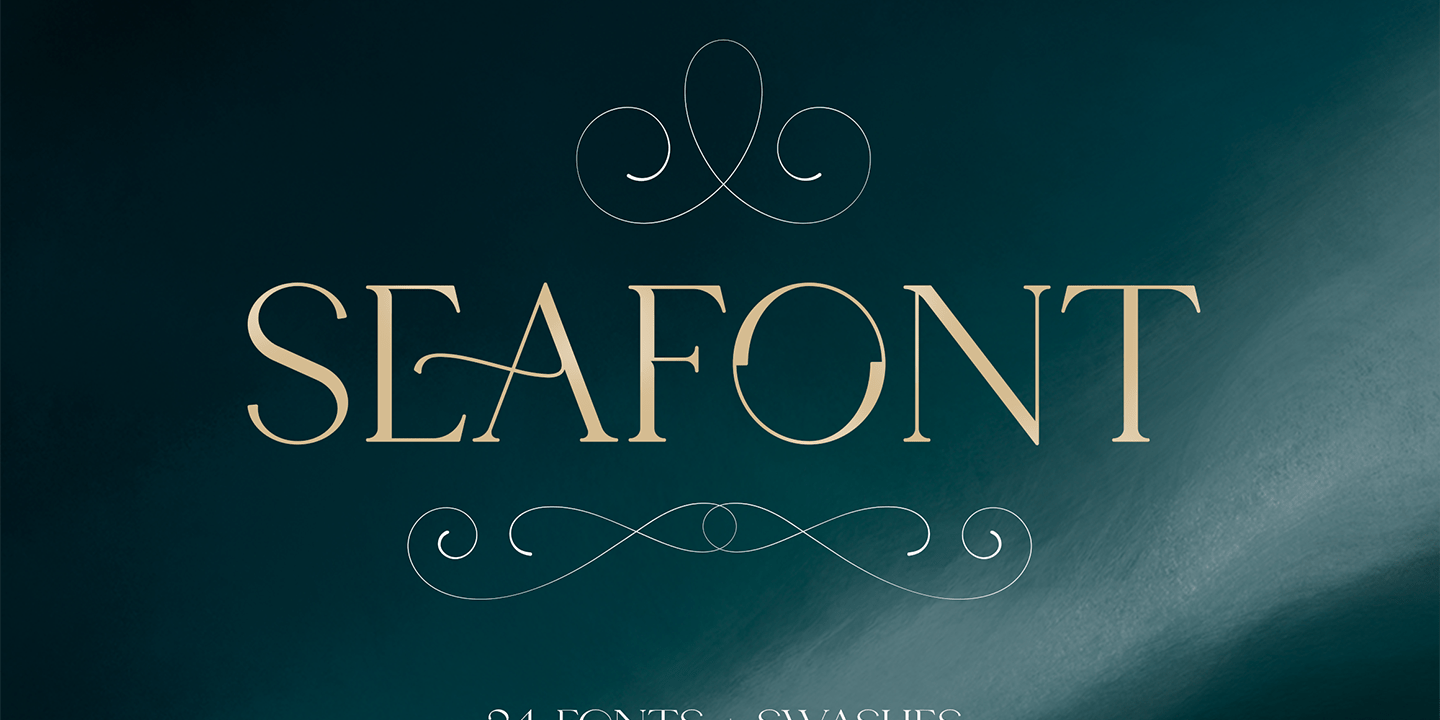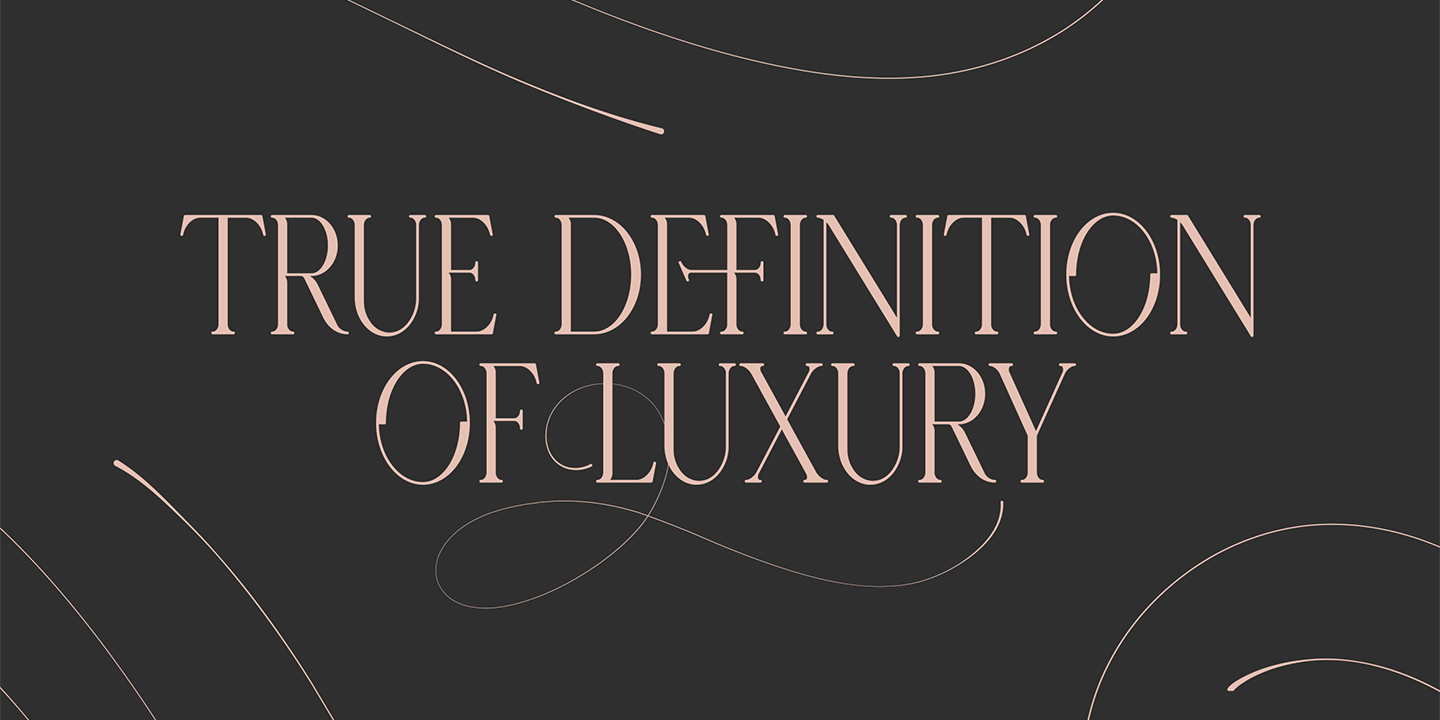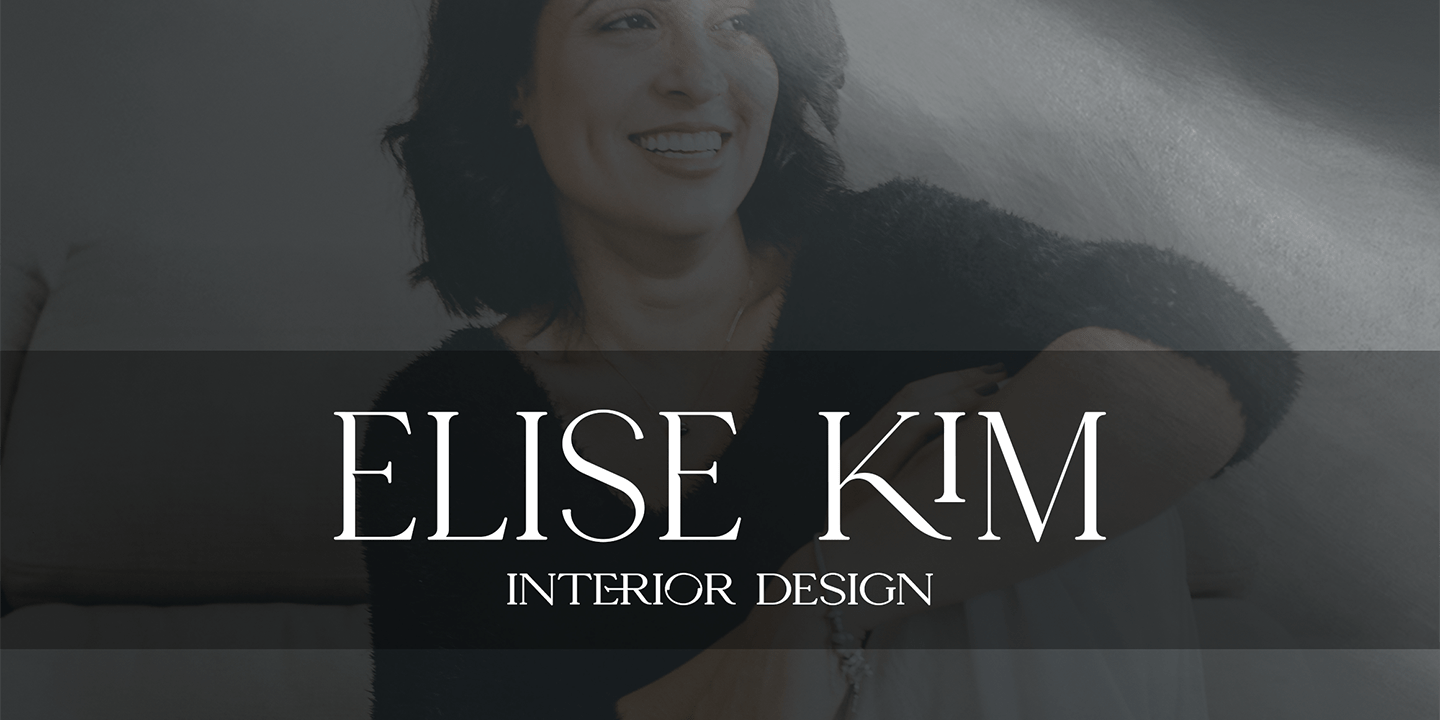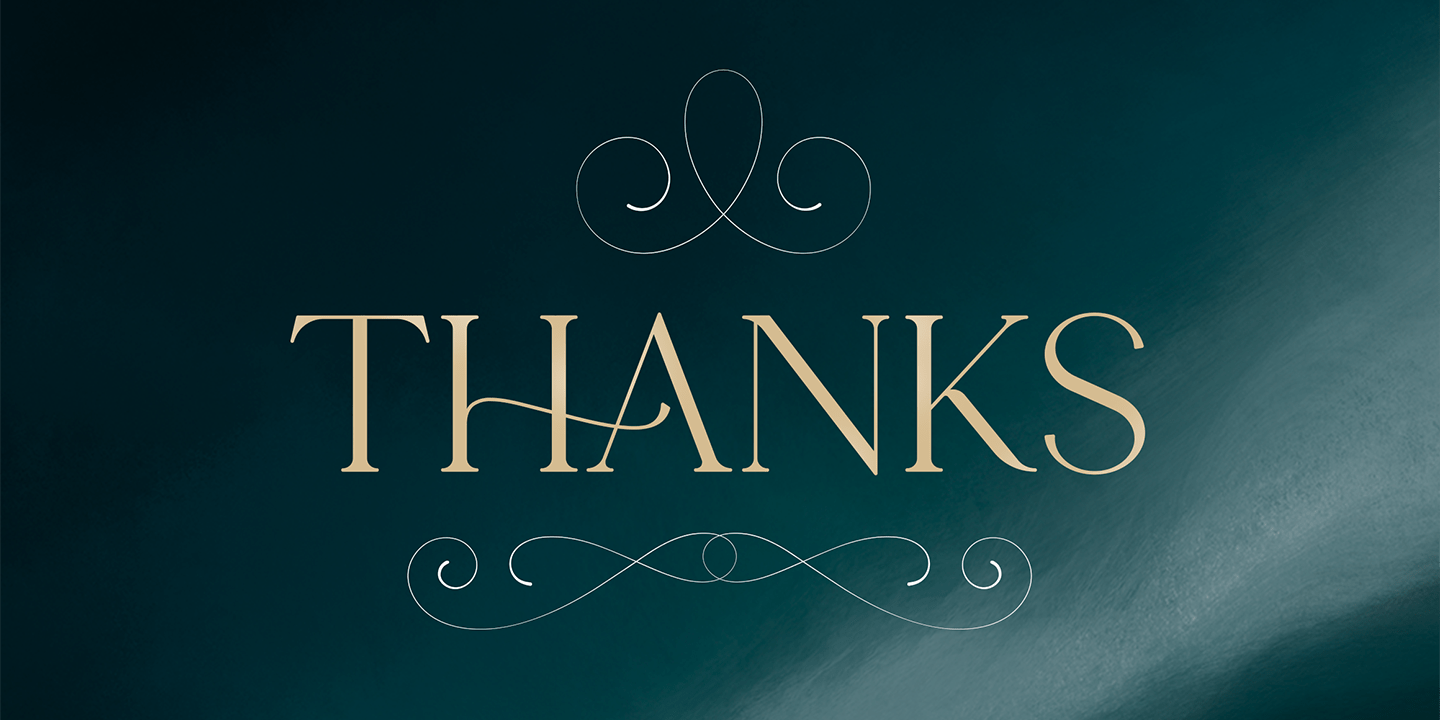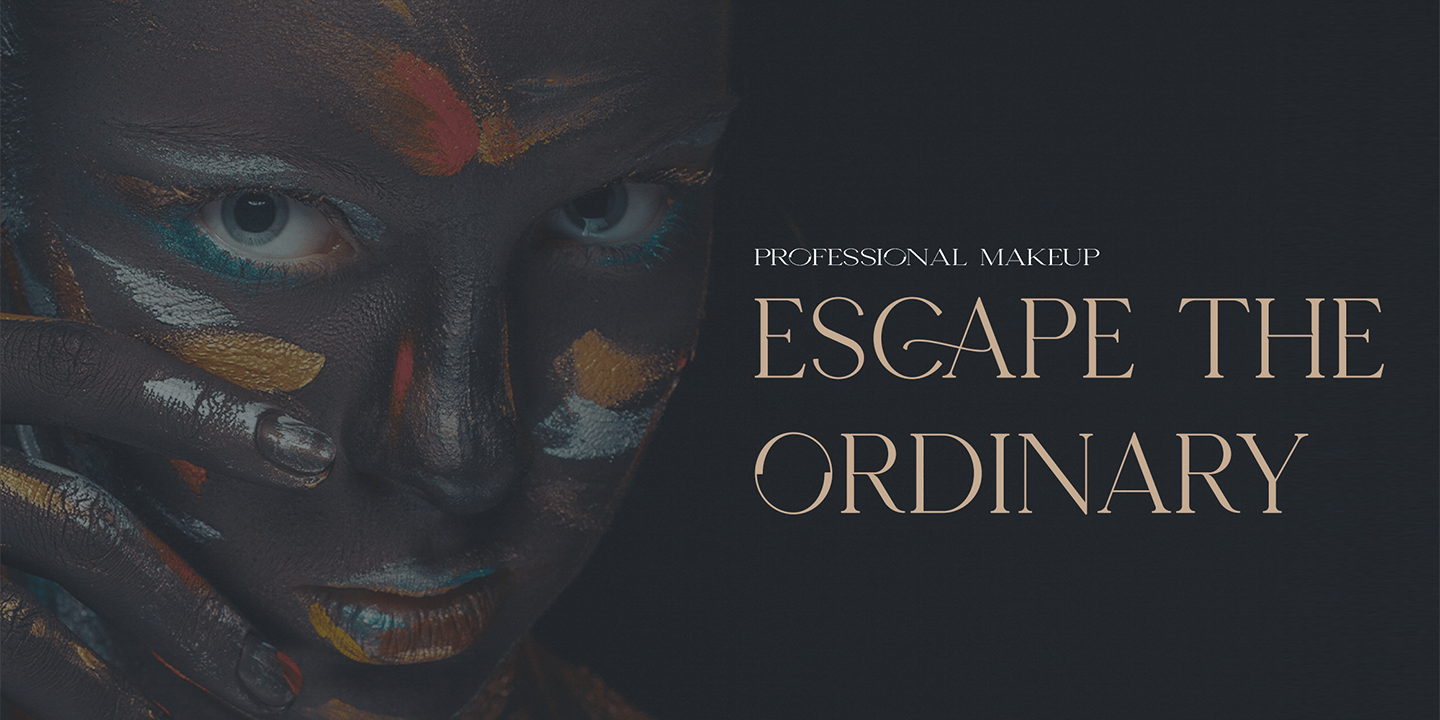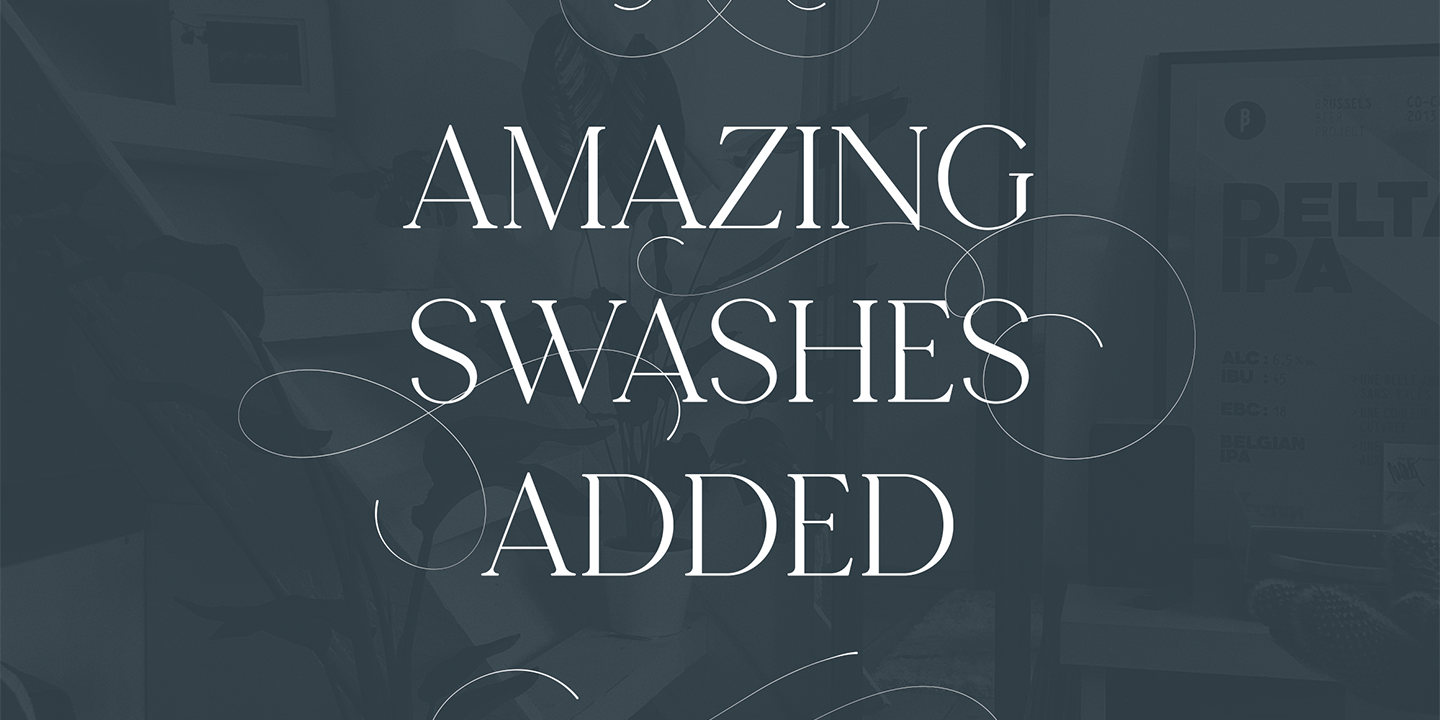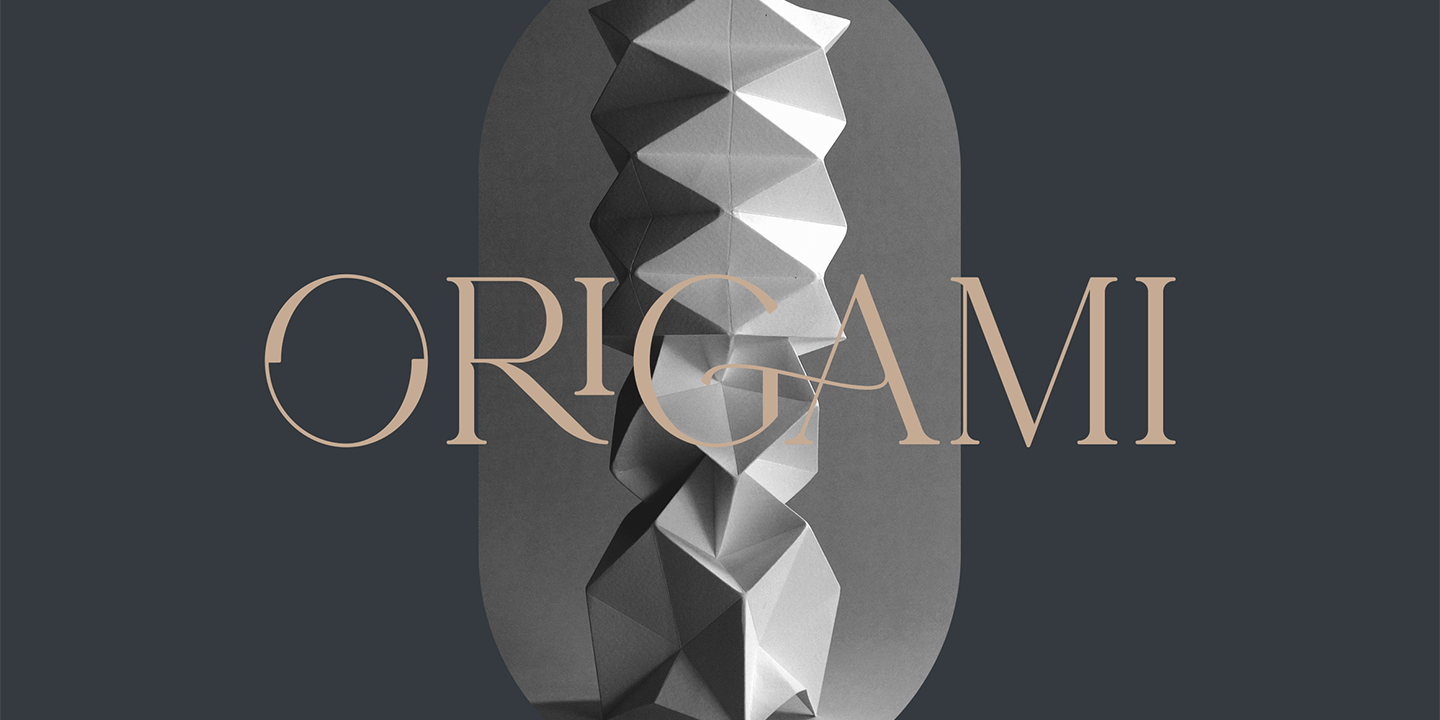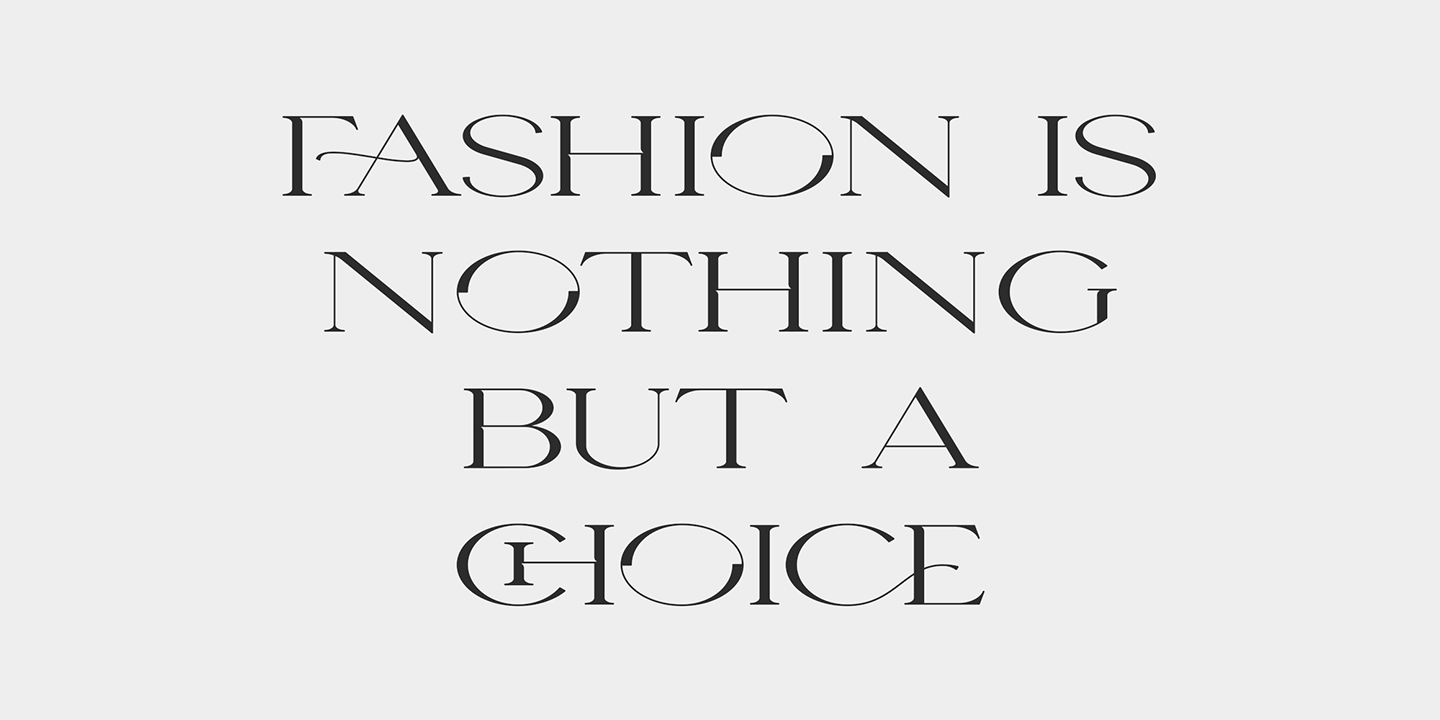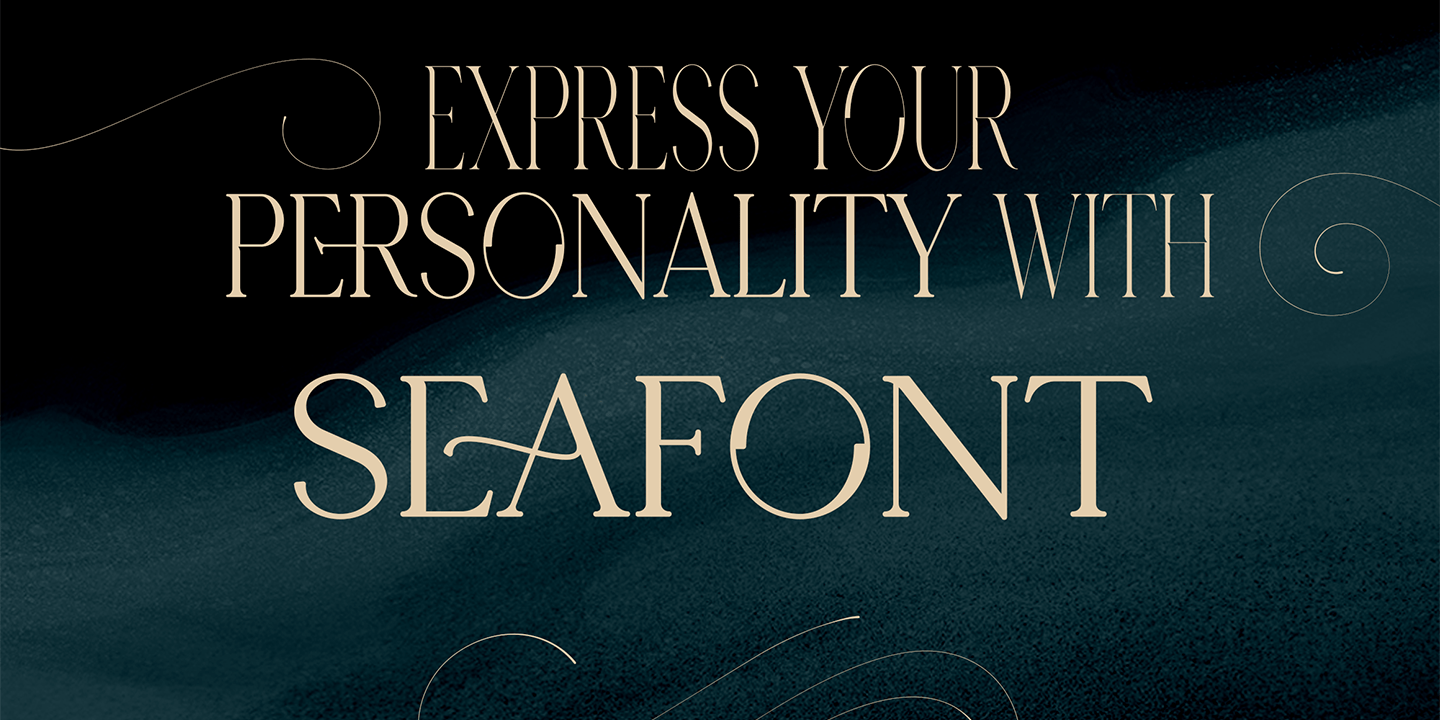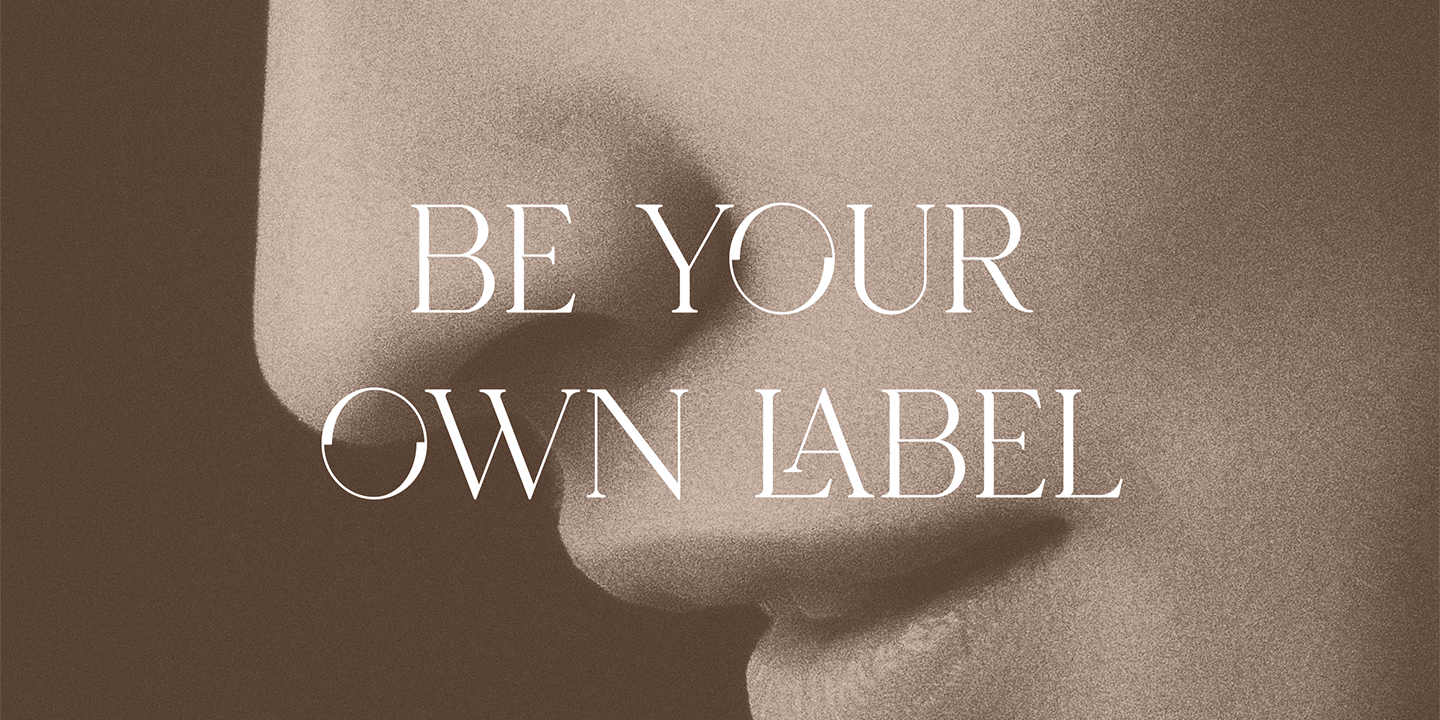
Seafont
Introducing Seafont - serif typeface , 24 fonts + 26 swashes
Say "hello" to Seafont, an exquisite serif typeface that's as timelessly stylish as it is versatile. Whether you narrow down your options with 24 font styles or go wild with 26 swashes and multi-language support plus ligature glyphs – the result will be one of a kind!
FEATURES
• Uppercase, lowercase, numeral, punctuation & Symbol
• ligature glyphs
• Narrower - 4 weights
• Narrow - 4 weights
• Regular - 4 weights
• Wide - 4 weights
• Wider - 4 weights
• Widest - 4 weights
• Multilingual support - 87 languages